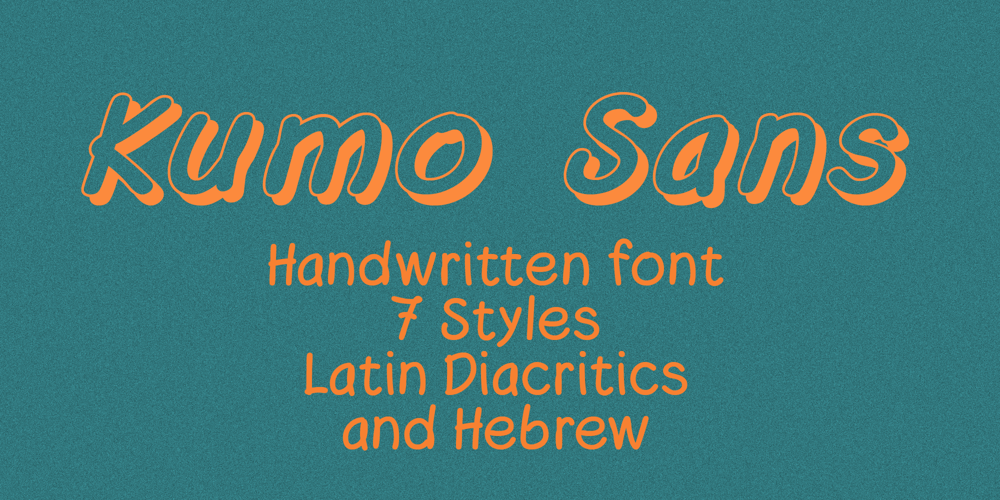
Kumo Sans
Kumo Sans font
Kumo Sans Font Family was designed by Cyrill Golikov and published by EchadType. Kumo Sans contains 7 styles and family package options. Kumo Sans is a clear and comprehensible font stylized to mimic marker pen handwriting. The idea was to interpret swift and negligent hand movement in a distinct and easy to read familiar glyph silhouette. Family comes in three weights and italic slant option. Shadow version with outline and shadow effect is perfect for short catchy phrases, brand names and headlines use. Font contains Latin diacritics, Hebrew cursive writing, Bitcoin, Indian Rupee, New Israeli Shekel symbols, fractions etc.